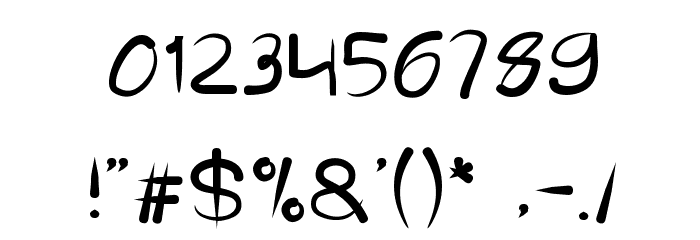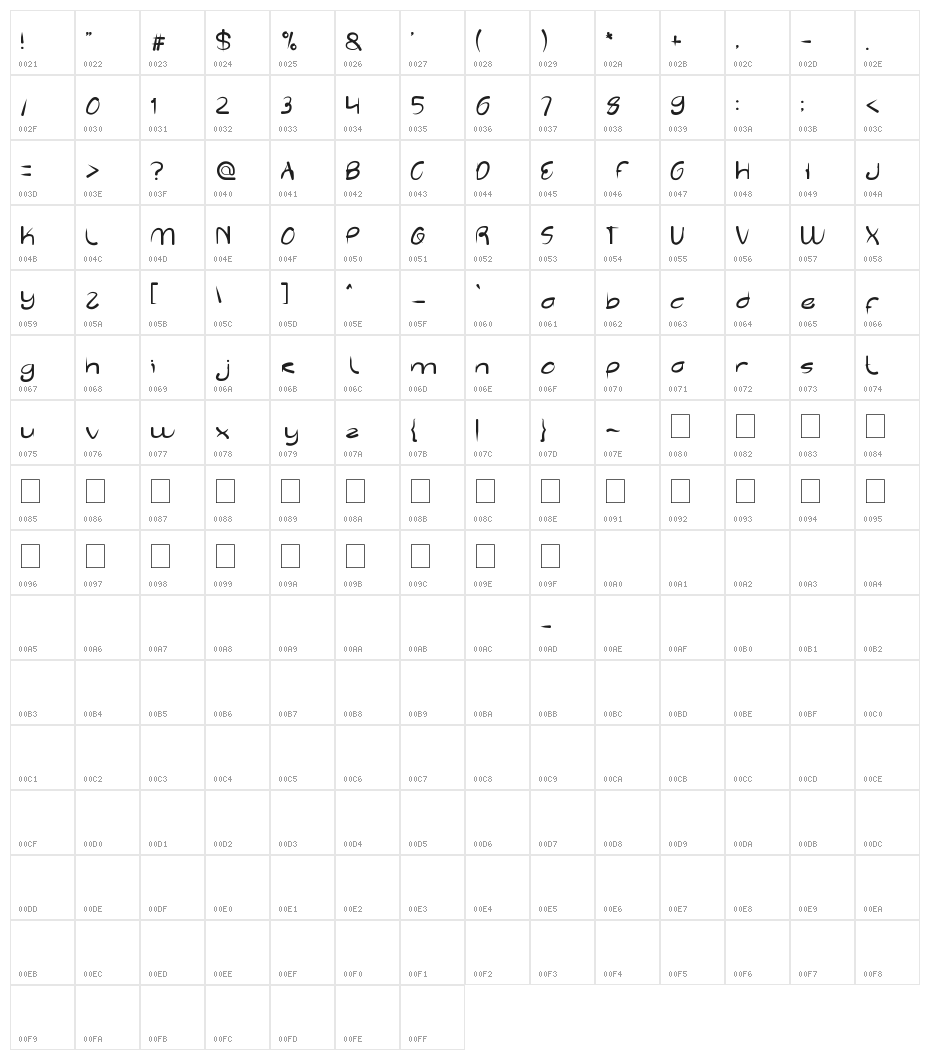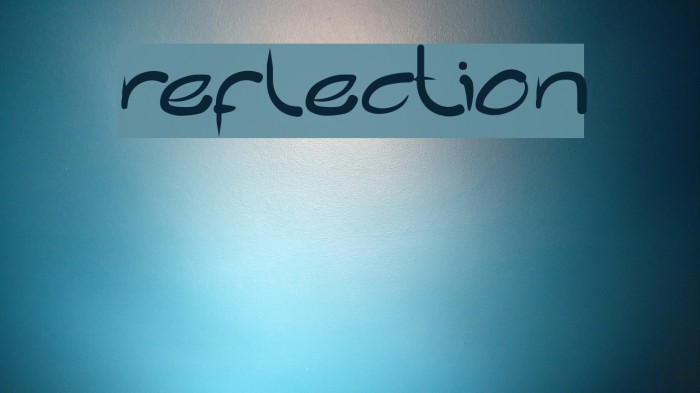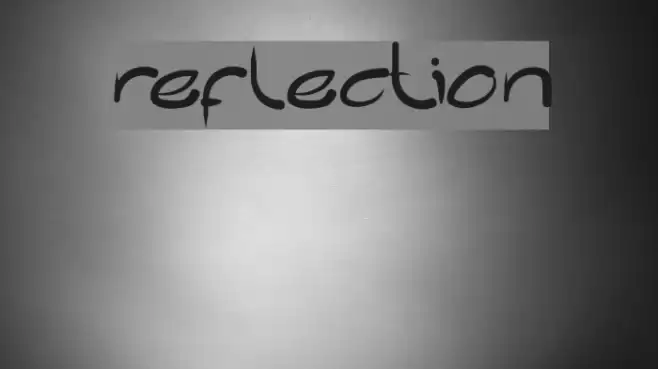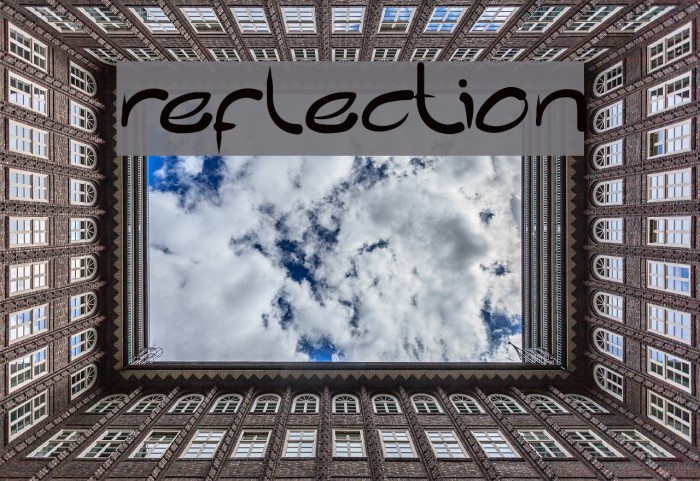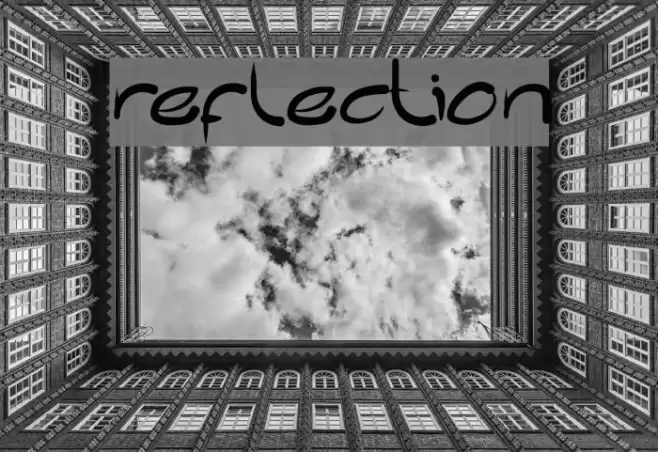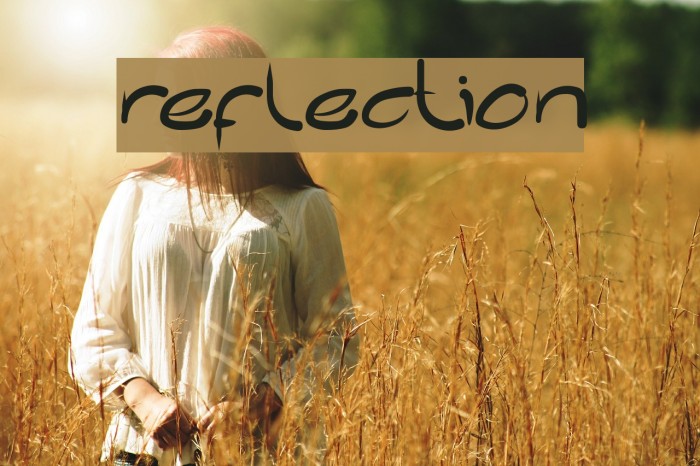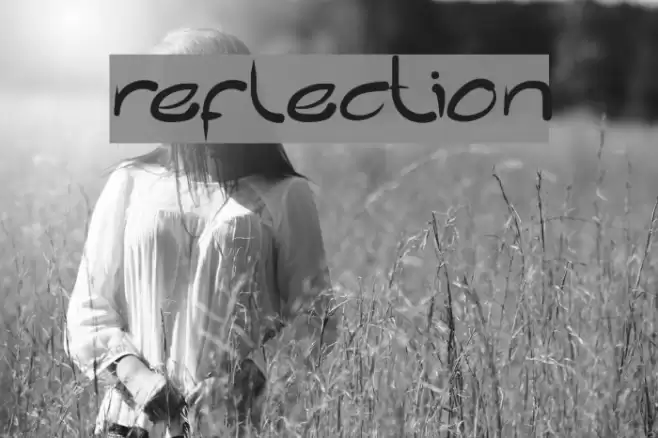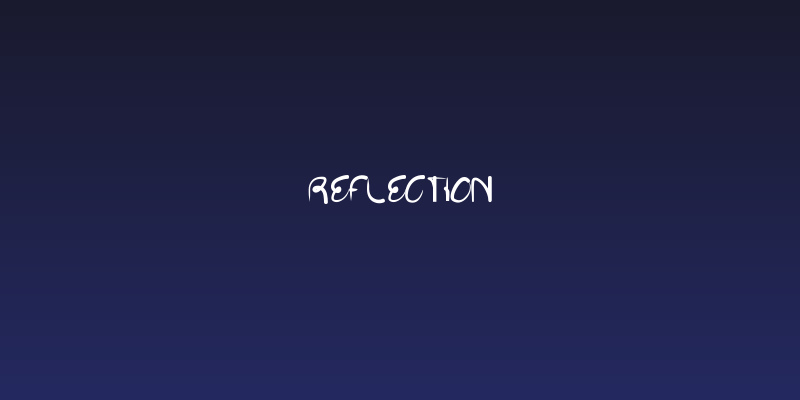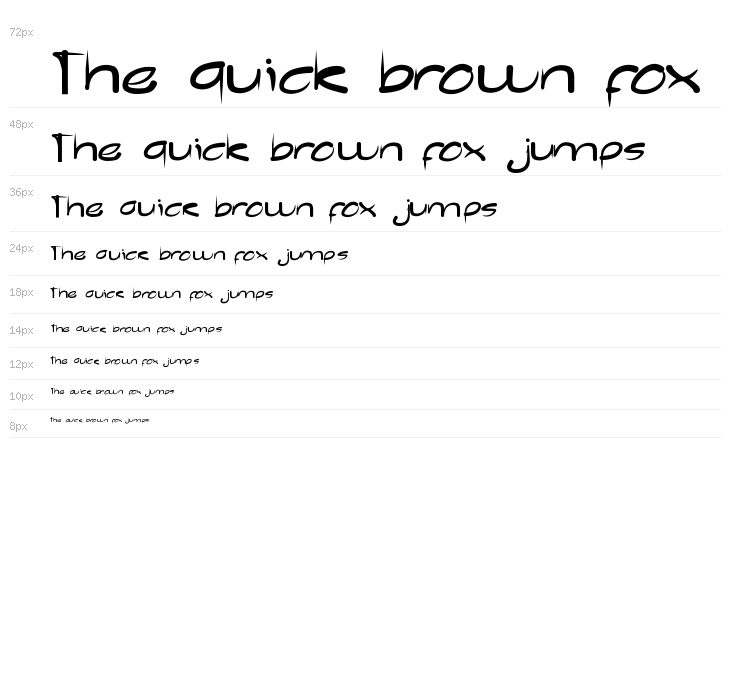
reflection Font
reflection Description
This font features a unique and artistic style with a playful, handwritten appearance. The letters are characterized by smooth curves and occasional sharp points, giving it a dynamic and lively feel. The uppercase and lowercase letters maintain a consistent flow, with some characters extending slightly below the baseline, adding to its whimsical nature. The numbers and special characters are designed to match the overall aesthetic, ensuring a cohesive look across all text elements. This font's distinctive style makes it ideal for creative projects that require a touch of personality and flair.